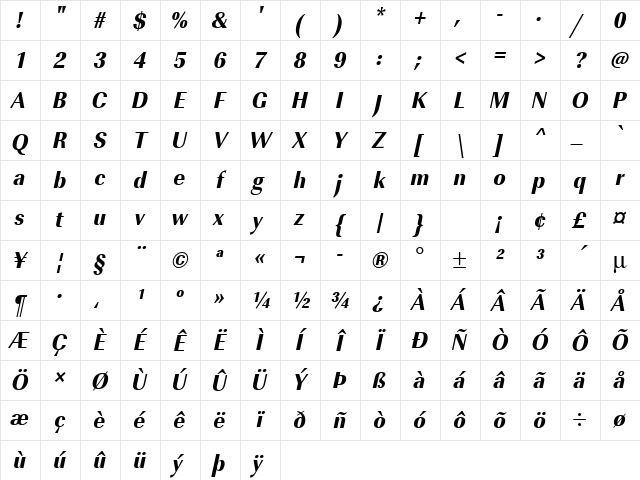
URWImperialTExtBolExtNar Oblique
Complete URWImperialTExtBolExtNar Oblique glyph index. Displaying only characters natively supported by URWImperialTExtBolExtNar Oblique font.
Design Context for URWImperialTExtBolExtNar
URWImperialTExtBolExtNar is a composed and adaptable typeface that performs quietly and consistently across a wide range of design contexts. The slanted form adds forward momentum and visual energy.
Pro Tip: Use URWImperialTExtBolExtNar for emphasis, pull quotes, and subheadings where its slanted energy can add rhythm to the layout.